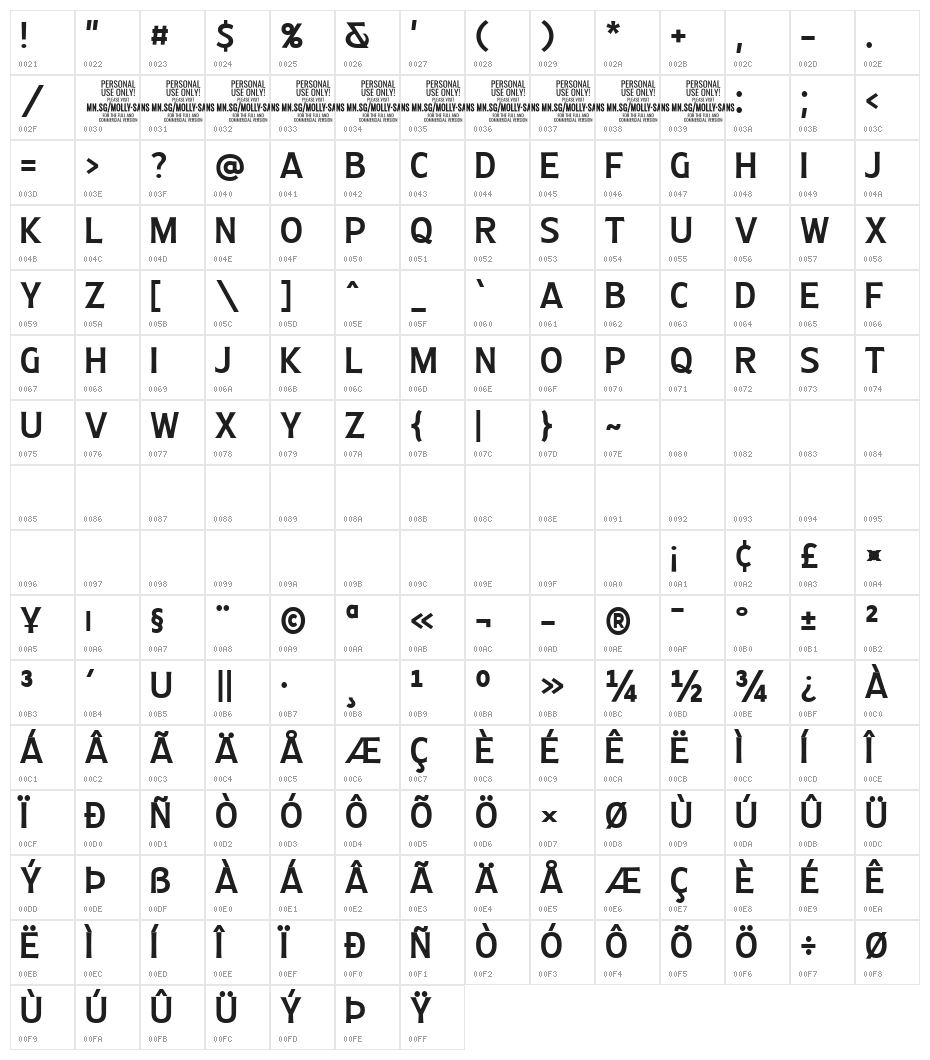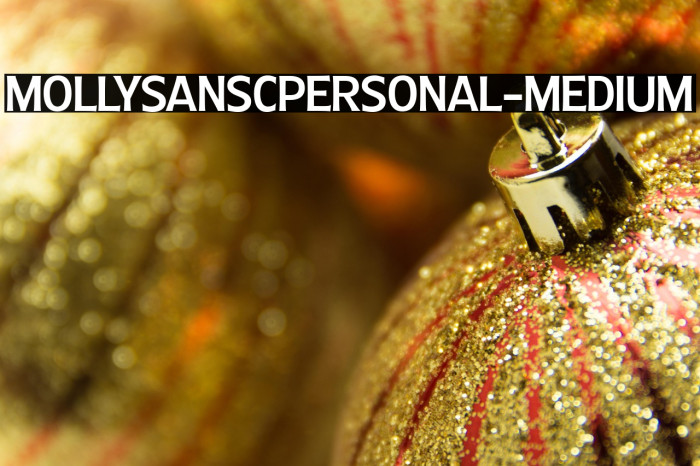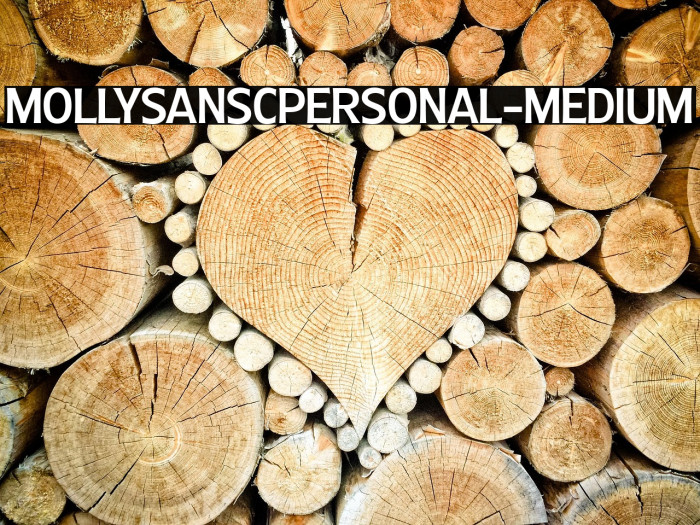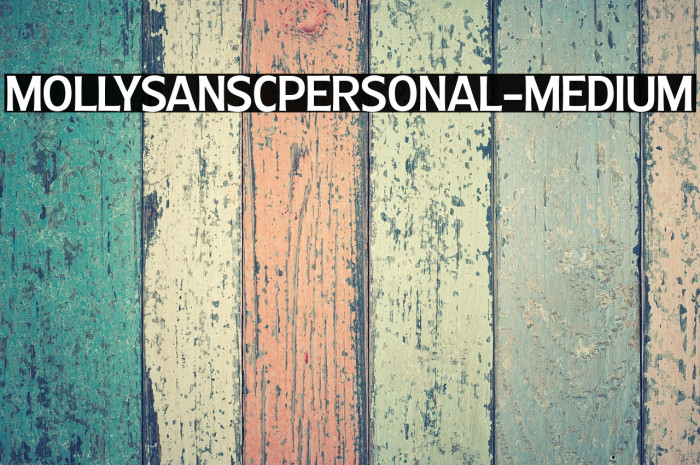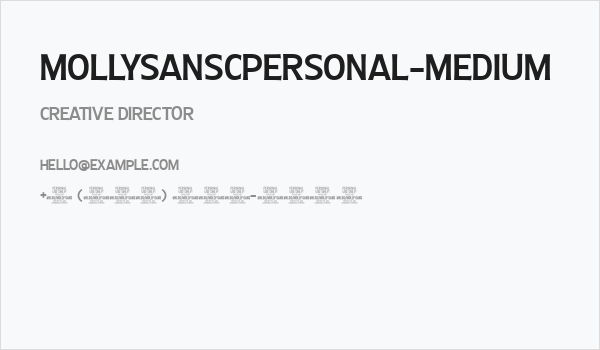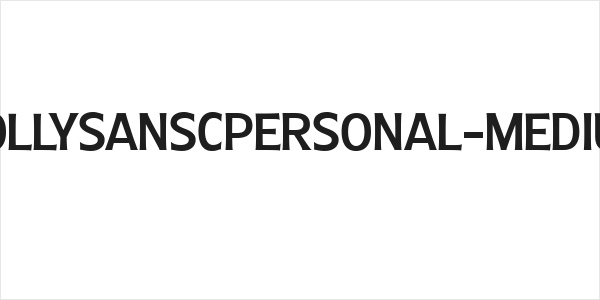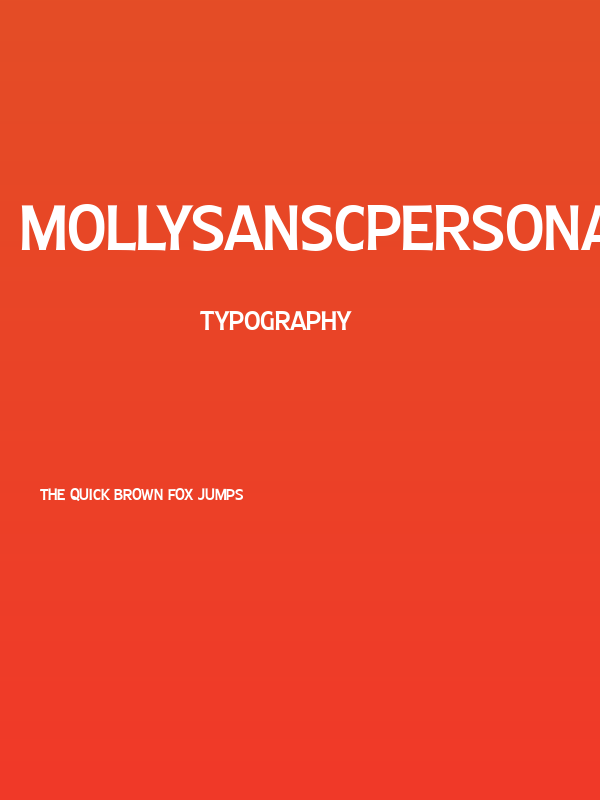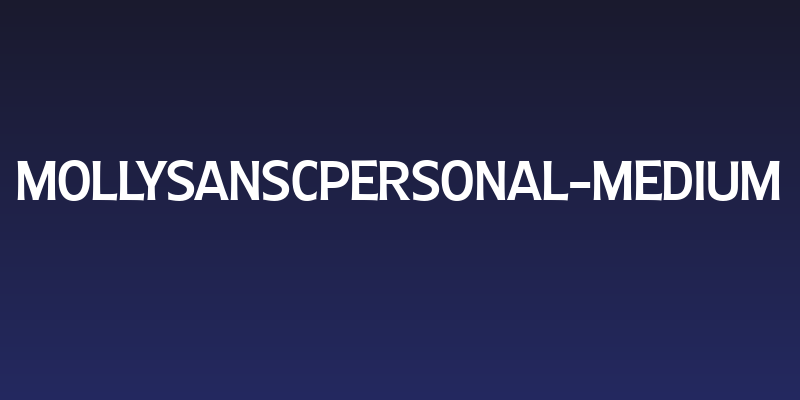
MollySansCPERSONAL-Medium Font
MollySansCPERSONAL-Medium Description
This font features a bold and modern sans-serif design with clean, geometric lines. The characters are slightly condensed, giving it a compact and efficient appearance. The uppercase letters are uniform in height, while the lowercase letters maintain a consistent baseline, contributing to a balanced and harmonious look. The numerals are clear and legible, making them suitable for various applications. Special characters are designed with the same attention to detail, ensuring a cohesive visual style throughout. The overall aesthetic is contemporary and versatile, making it suitable for a wide range of design projects.